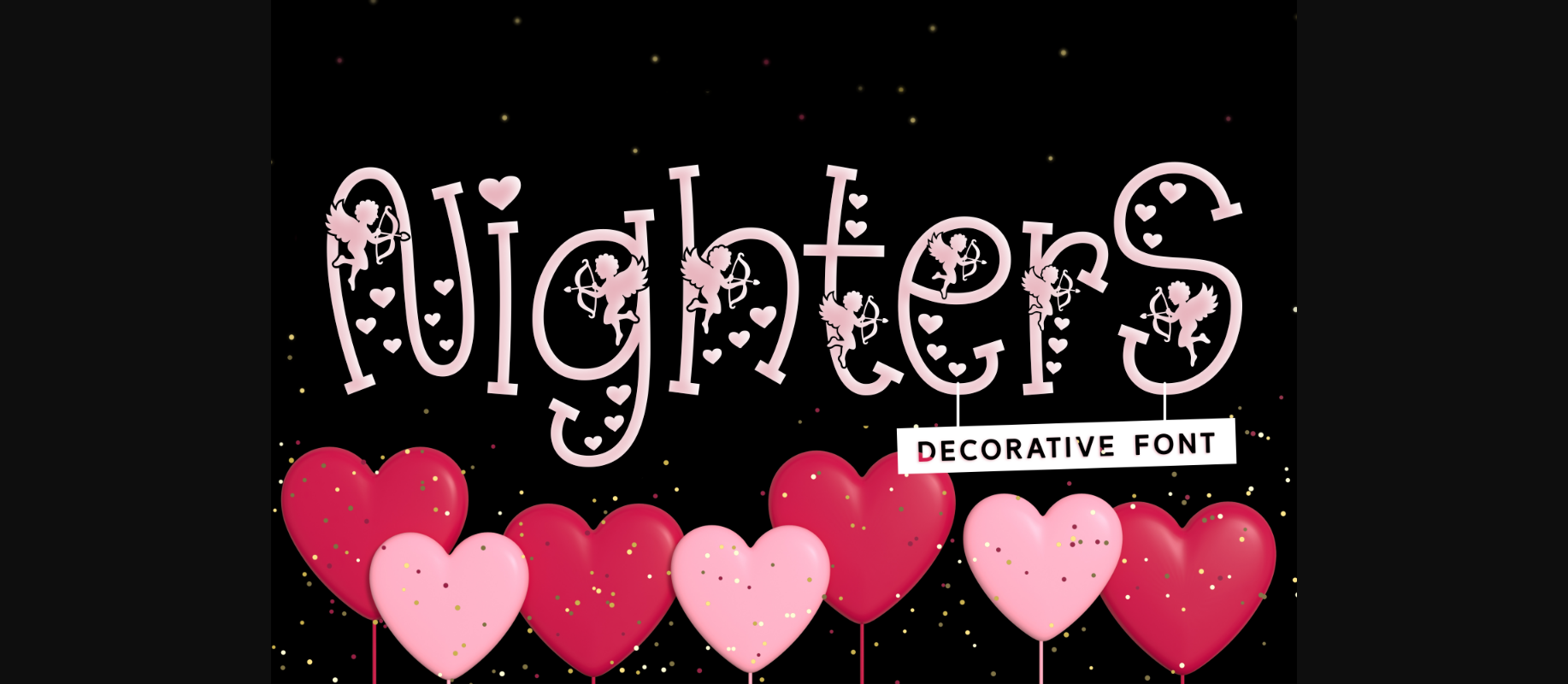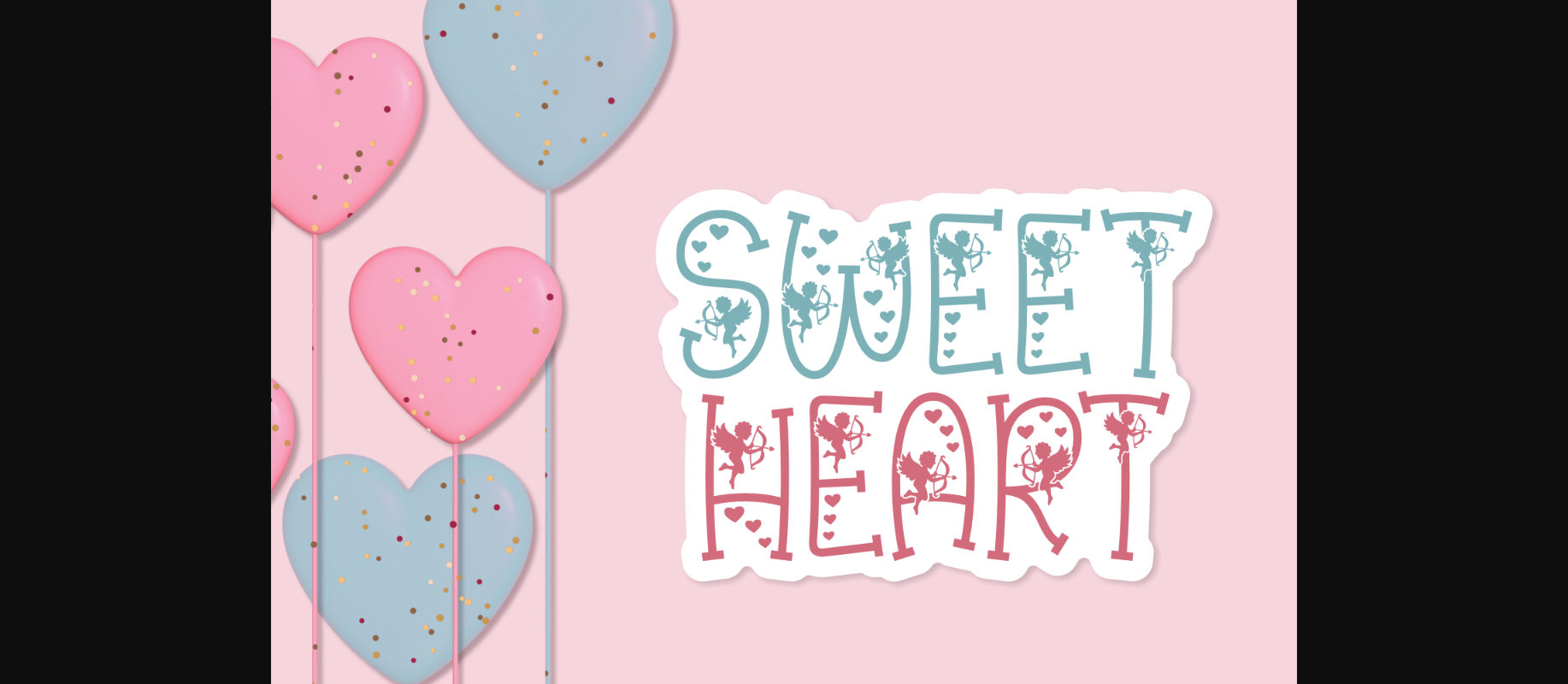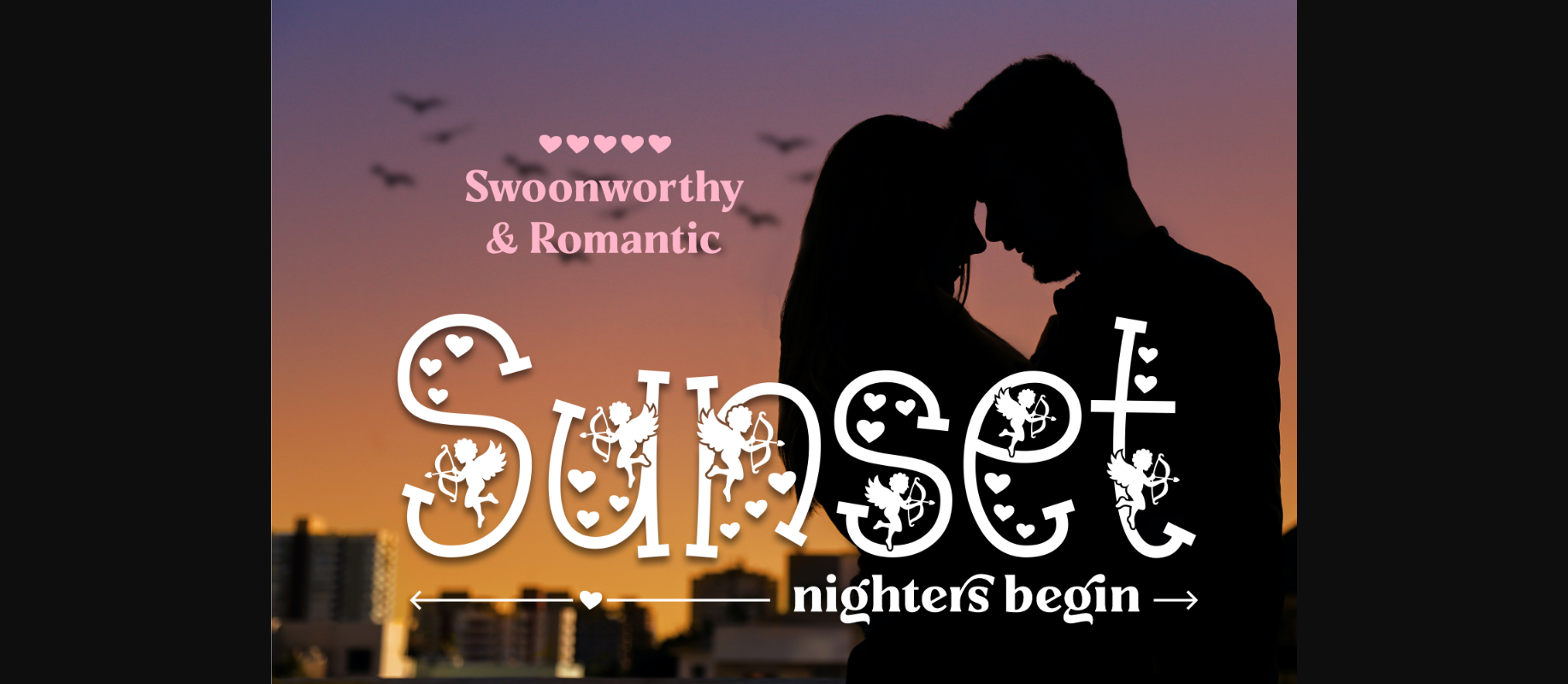
Nighters Font
About Nighters Font
Nighters is a sweet, quirky and romantic decorative font. Use it for your Valentine’s letters, cards or nearly anything that requires a gorgeous touch.